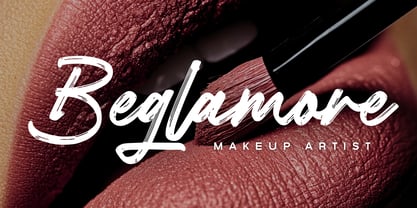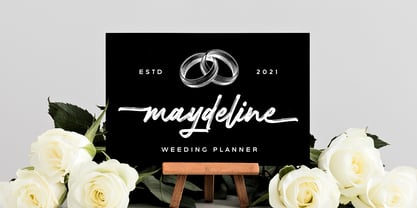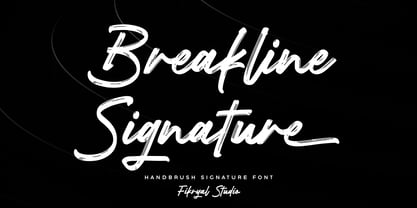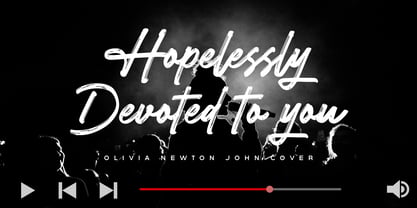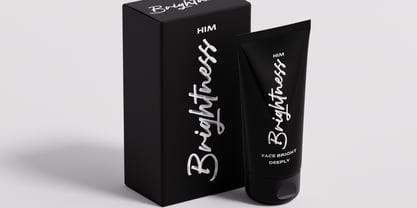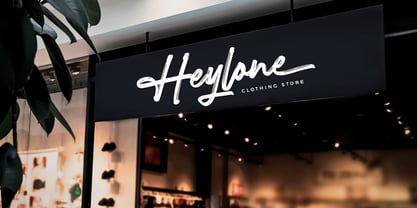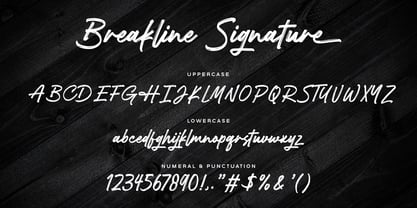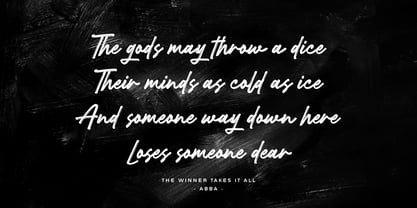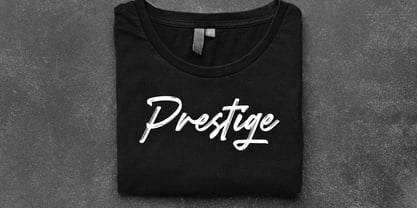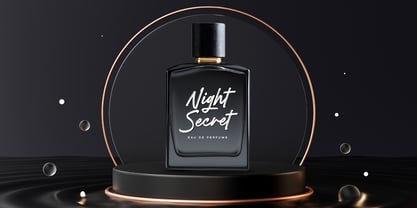
Breakline Signature
by Fikryal
The Breakline Signature Font Family was designed by Muhammad Fikry and published by Fikryal. Breakline Signature contains 1 styles. More about this family
Breakline Signature is a natural handbrush signature script font designed to bring an authentic handwritten feel into modern design. Inspired by real brush lettering, this font delivers smooth strokes, organic flow, and an elegant signature character. It comes with stylistic alternates for beginning and ending letters, allowing you to create unique, dynamic, and personalized typography. Each word looks fluid and expressive, making your designs feel more premium and distinctive. Breakline Signature is perfect for: Logo & brand identity Fashion & beauty branding Photography watermark Wedding invitations Social media content & quotes Packaging & product labels Posters, covers, and editorial design ✨ Features Handbrush signature script font Natural handwritten brush strokes Stylistic alternates (beginning & ending) Elegant, modern, and expressive style Easy to use on both print and digital projects If you have any questions please don’t hesitate to contact me. follow my Instagram: fkryall Thank you 🙂
Designers: Muhammad Fikry
Foundry: Fikryal